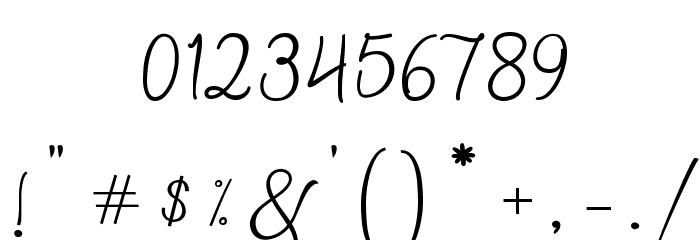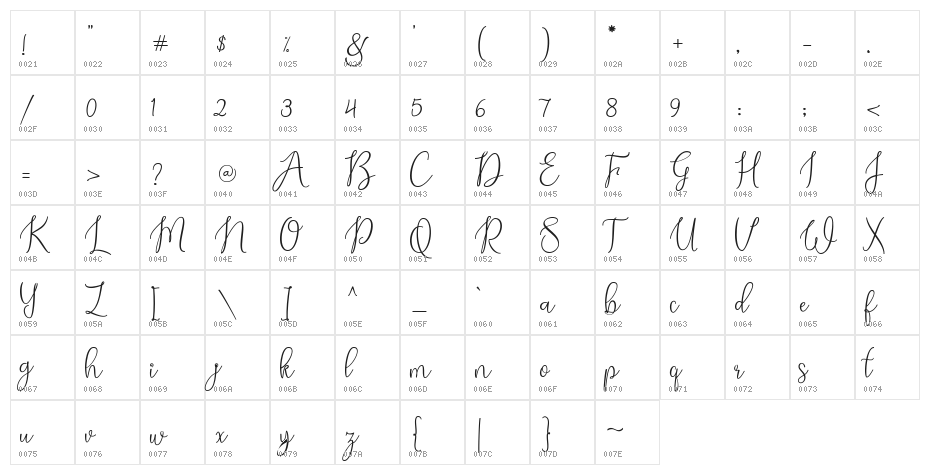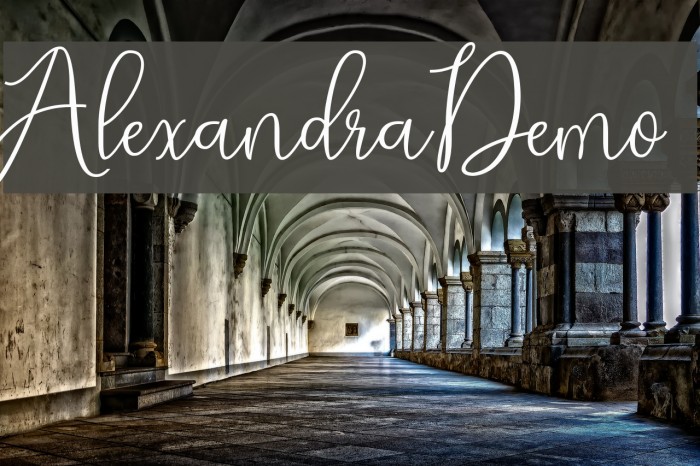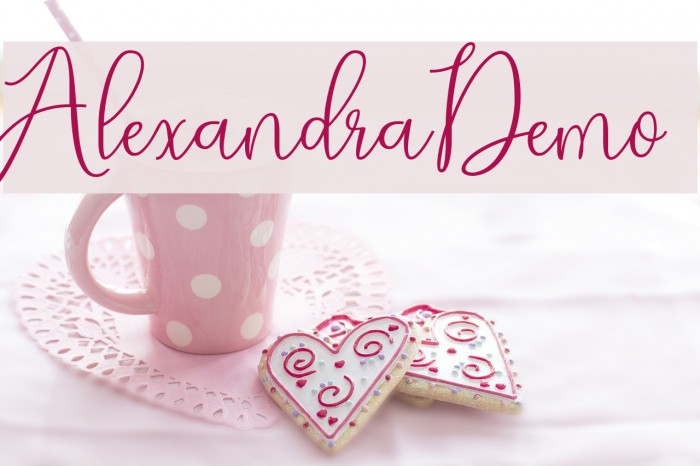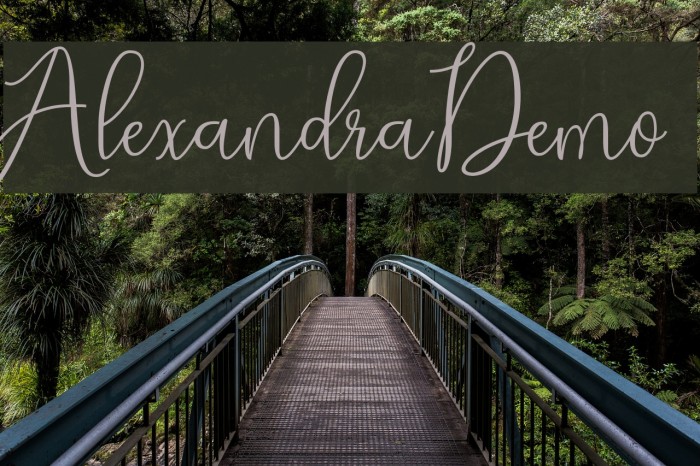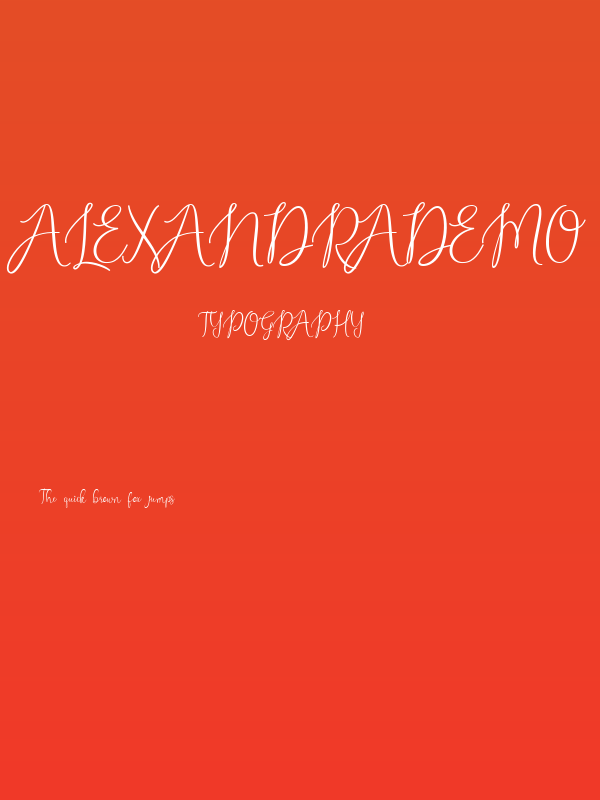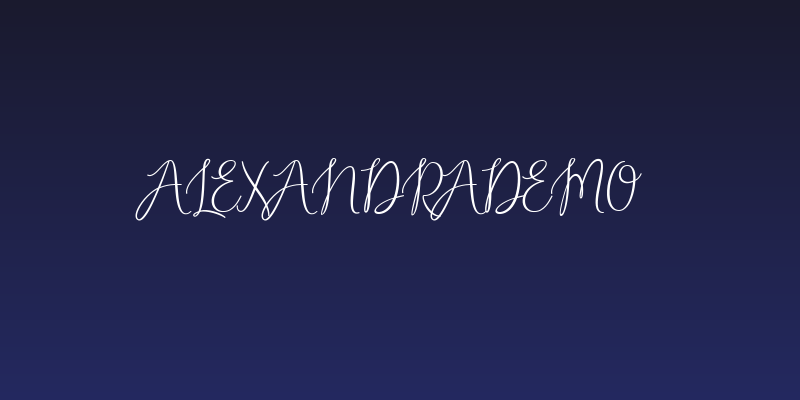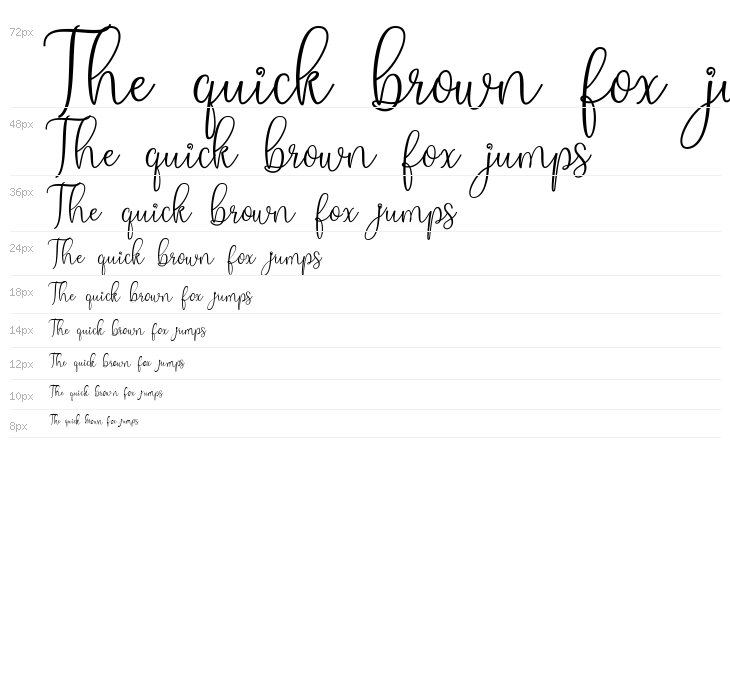
AlexandraDemo Font
AlexandraDemo Description
This font exudes a graceful and elegant script style, characterized by its fluid, cursive strokes and delicate loops. The uppercase letters are tall and slender, with a slight slant that adds a sense of motion and sophistication. The lowercase letters maintain a consistent flow, with smooth connections between each character, enhancing the overall readability. The numerals are distinct and align well with the alphabet, maintaining the font's elegant aesthetic. Special characters are thoughtfully designed to complement the script style, ensuring versatility in various applications.
| Use Case | Logos, Invitations, Decorative Text |
| Proposed Projects | Ideal for wedding invitations, elegant branding, personal stationery, and decorative quotes. |